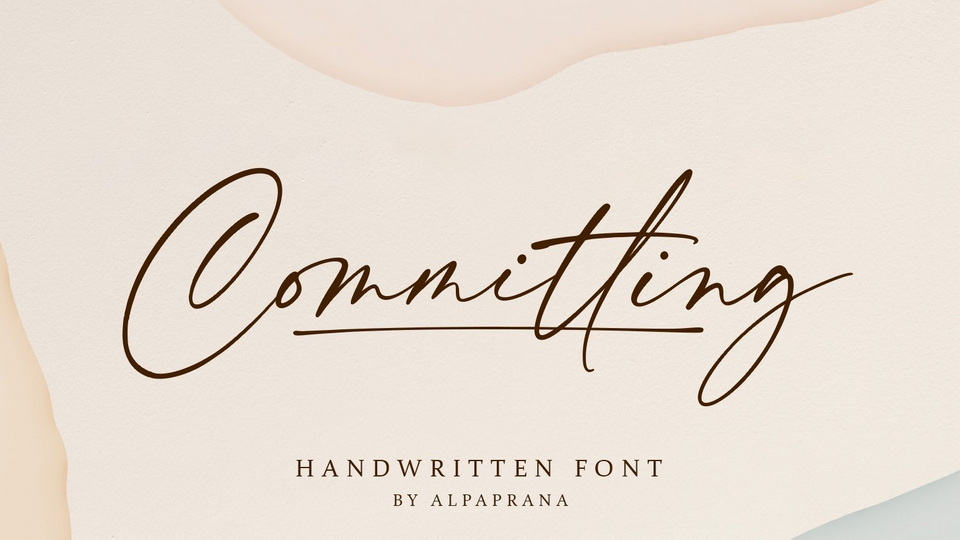
Download Committing font, a stunning handwritten typeface with authentic and casual feel. Committing will be perfect for branding, signature logotype, magazine, photography watermark, special events and other design project.
Designer: Alpaprana Studio